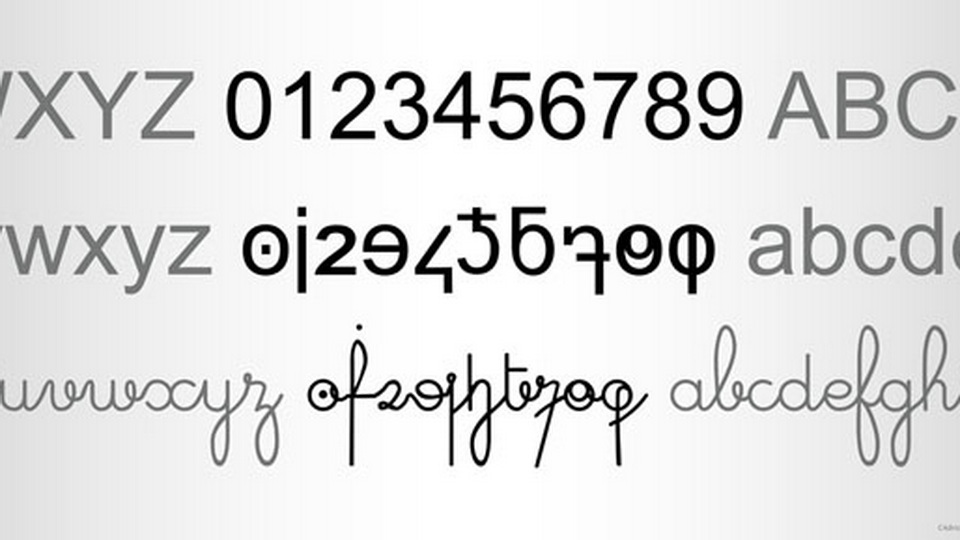
Download The Chiffres font, a new concept of writing, that imagines a faster way to write numbers, using the Latin alphabet as a reference.
Designer: Cédric Dequidt